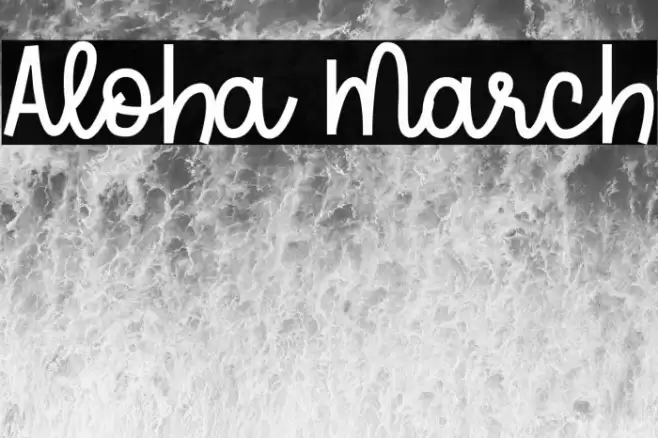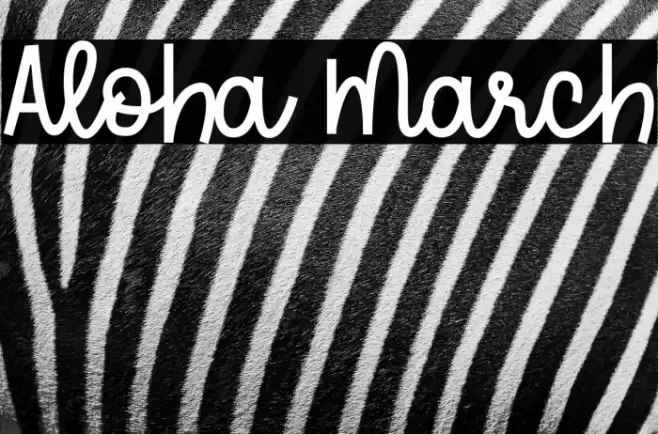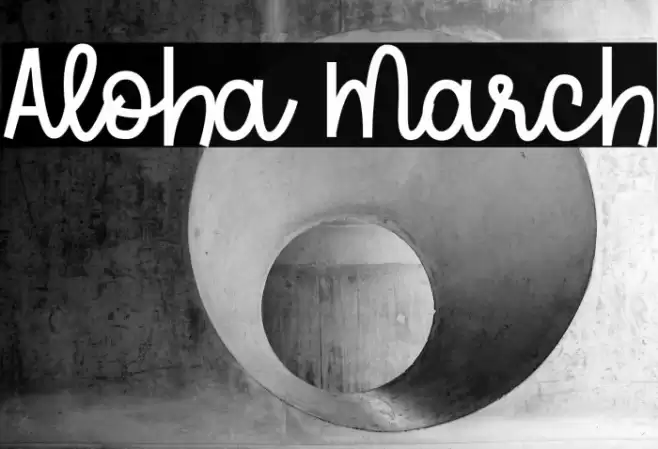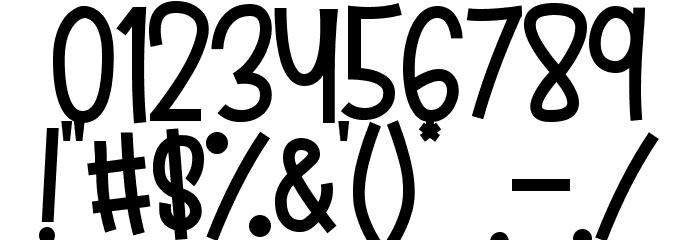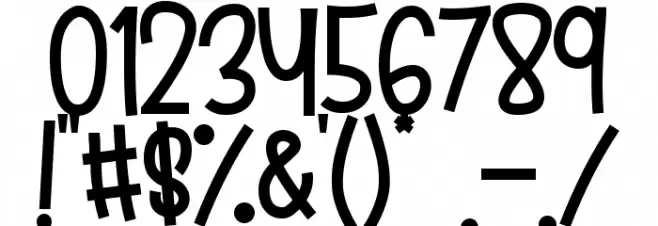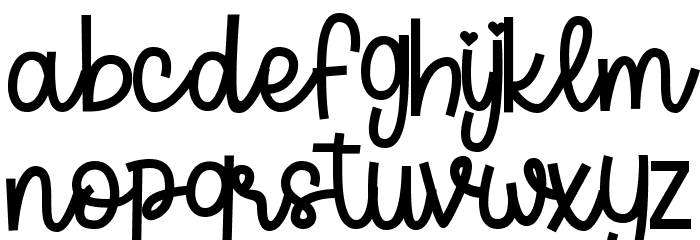
Aloha March Font
Aloha March Description
This playful and whimsical font features a handwritten style with a smooth, flowing script. The characters are rounded and connected, giving a casual and friendly appearance. The uppercase letters are bold and slightly larger than the lowercase, which maintain a consistent height. The numbers are well-proportioned and align with the overall style. Special characters are creatively integrated, maintaining the font's playful essence. This font is ideal for projects that require a personal touch, such as invitations, greeting cards, or playful branding.
A playful, handwritten script font with a whimsical and friendly style from Regular fonts.
- Proposed Projects: Ideal for invitations, greeting cards, playful branding, and personal projects.
- Overall Style: Playful
- Use Case: Headlines, Logos, Invitations